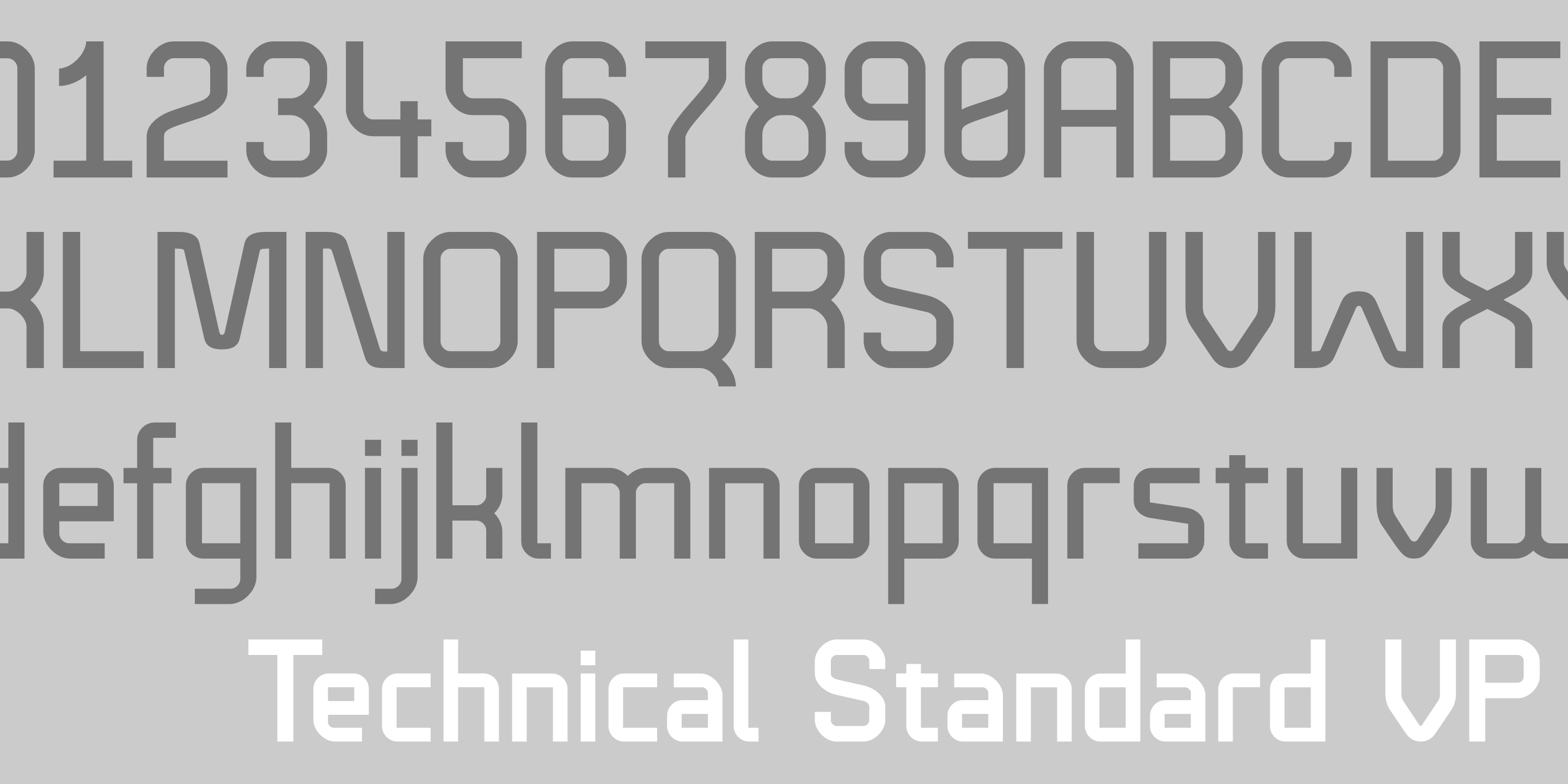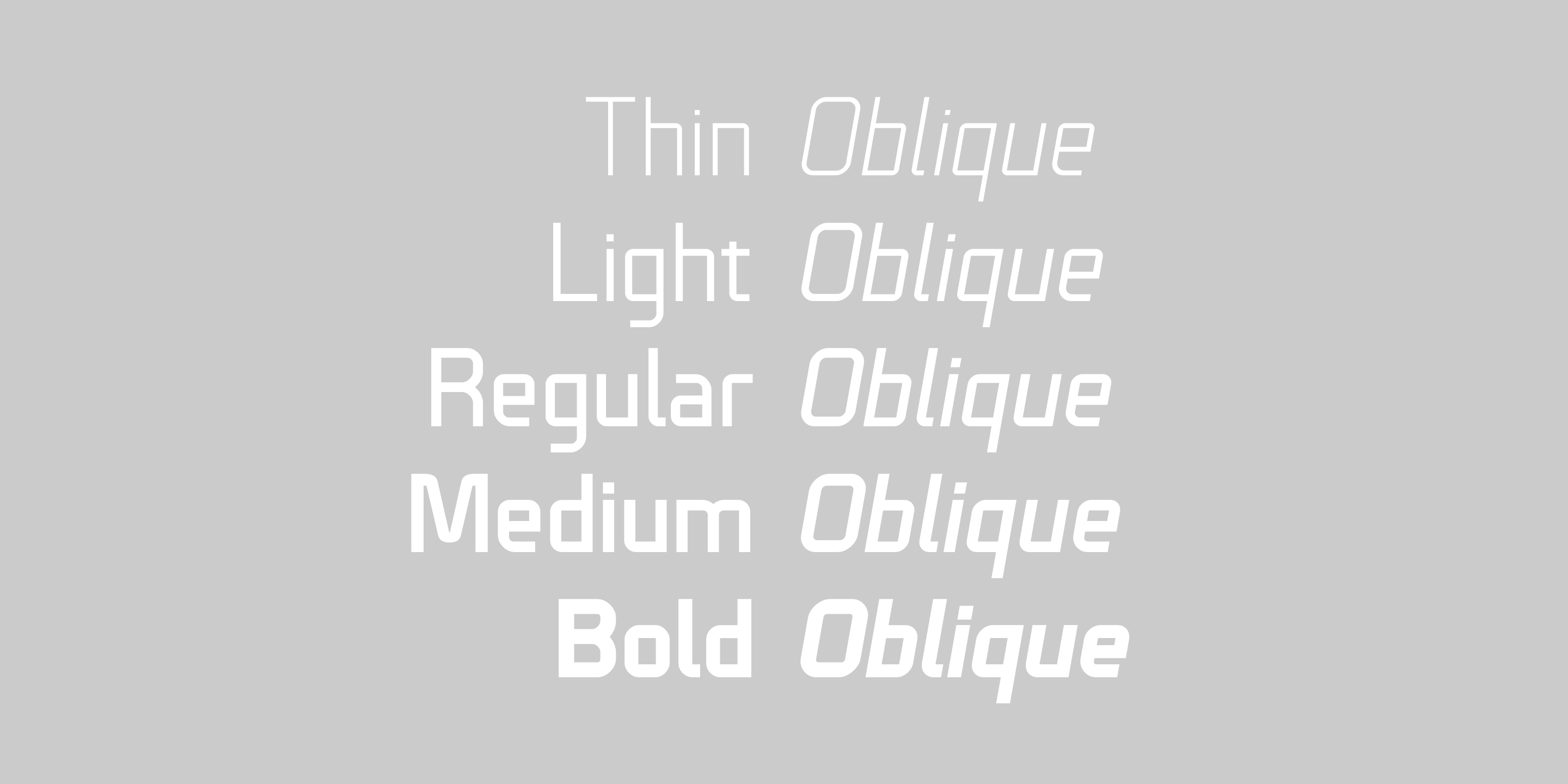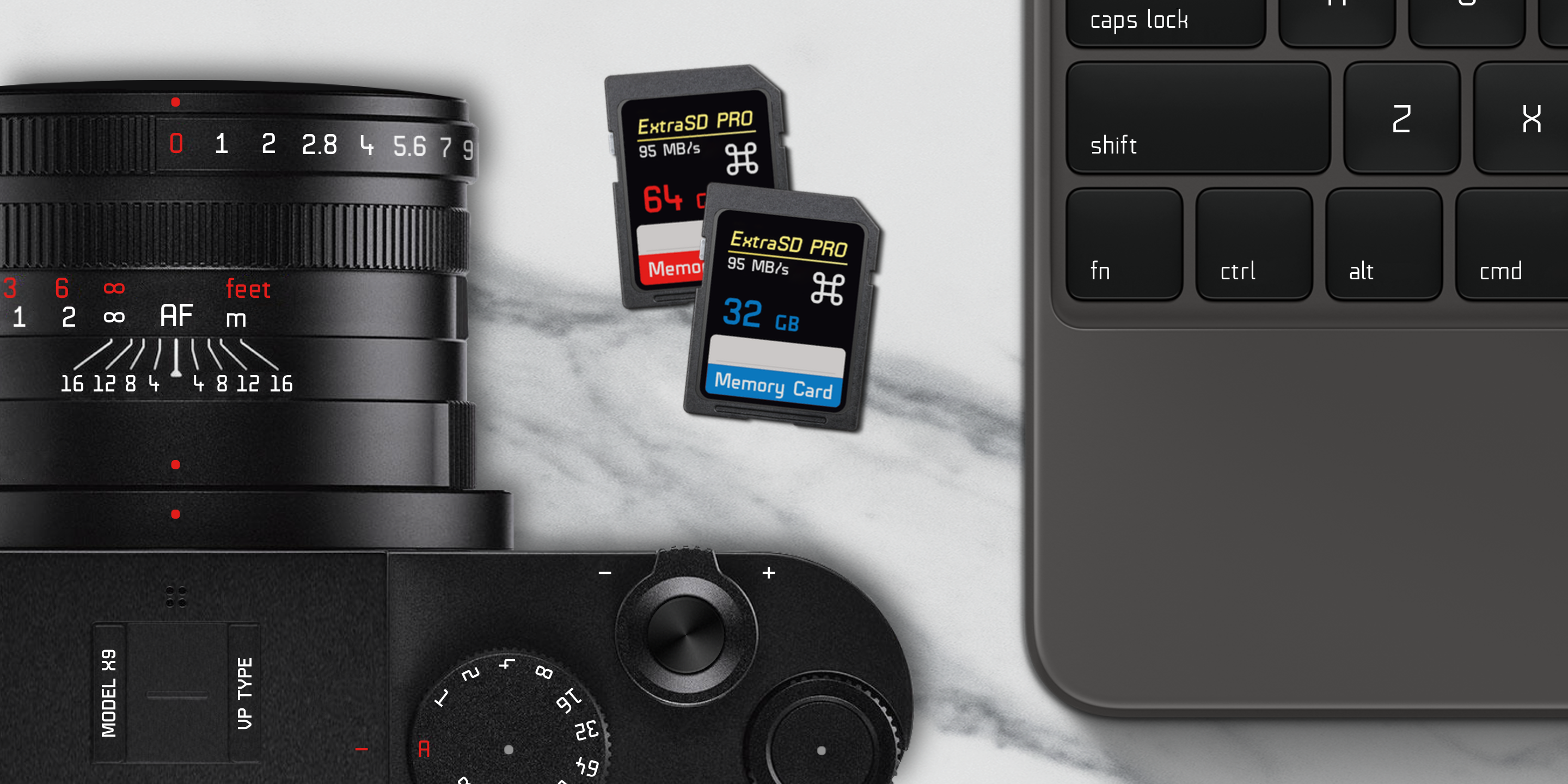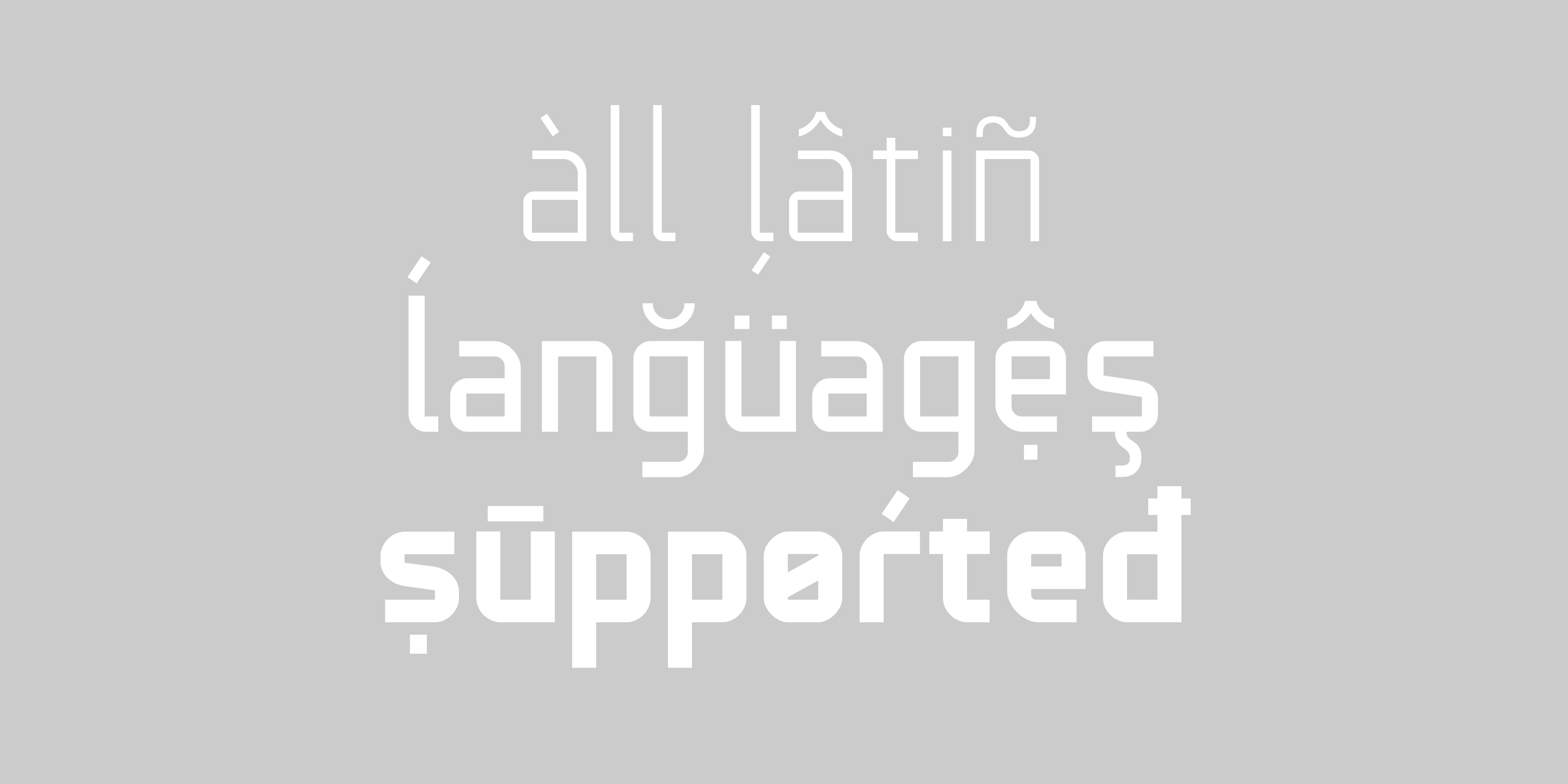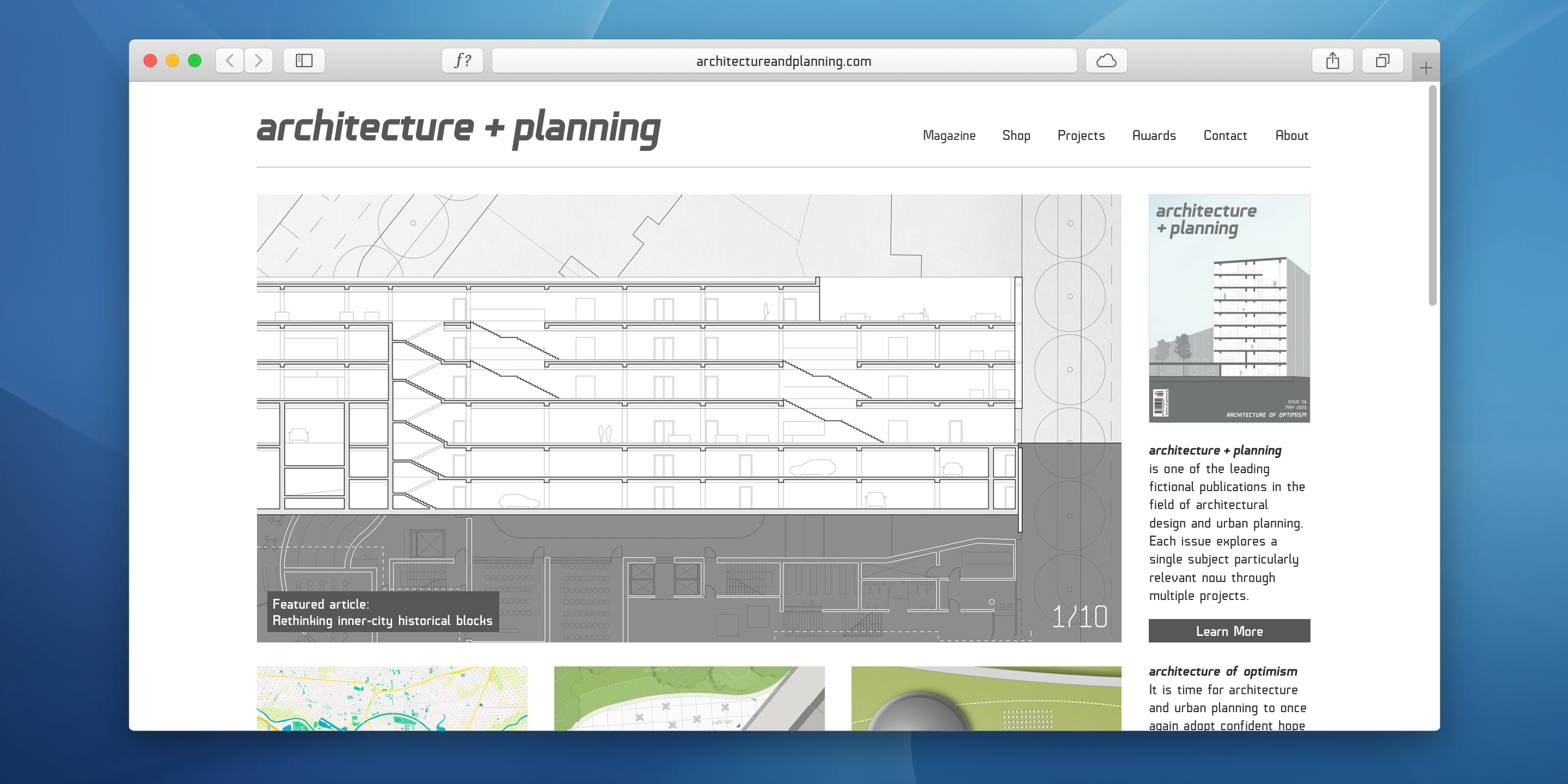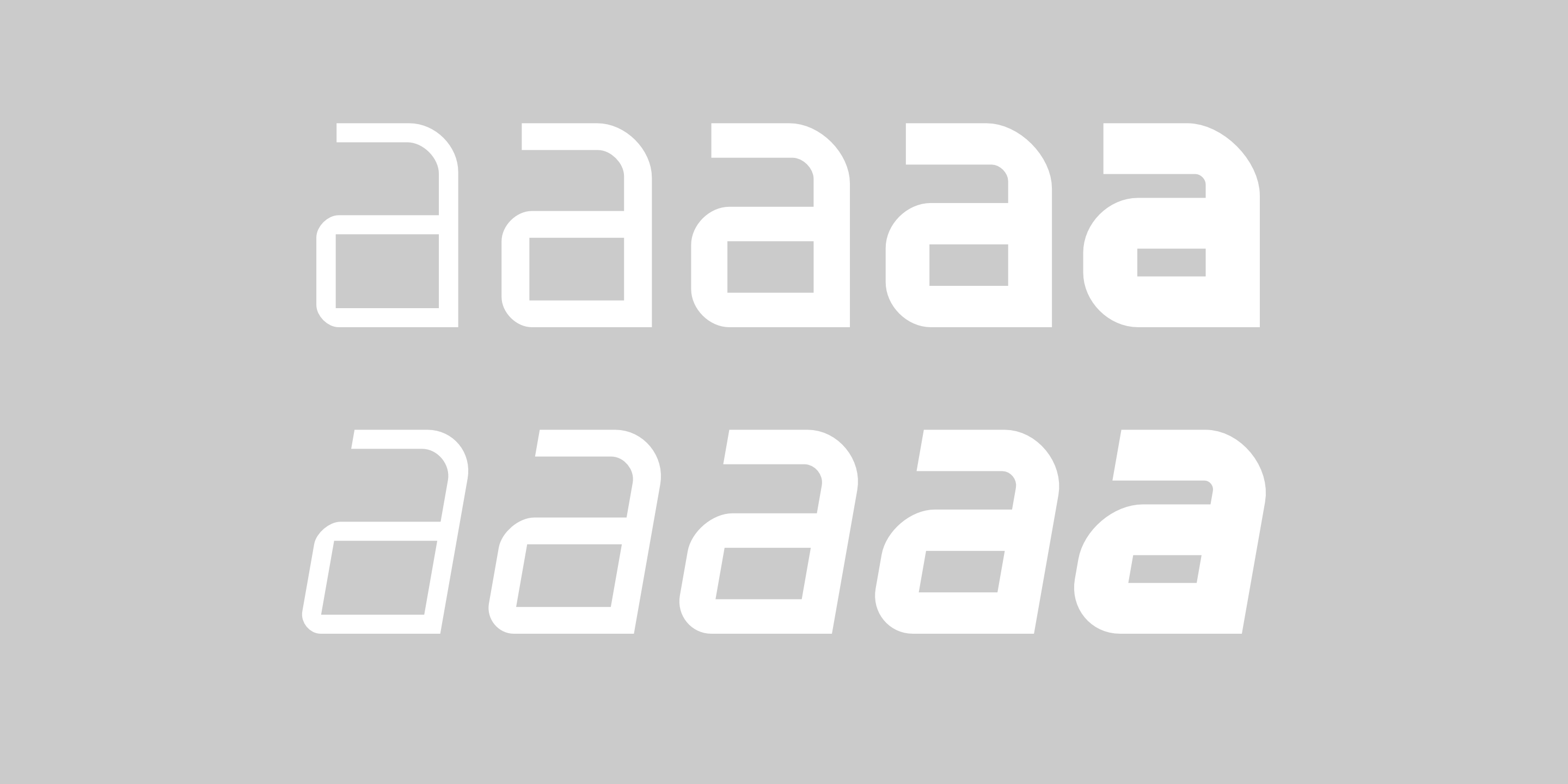
The initial inspiration for the design of <b>Technical Standard VP</b> came from examining the various types of precisely machined labels on tools from cameras to cars, which need to be perfectly legible at all sizes. The unique streamlined look such processes achieve was carefully reinterpreted and manually refined over the course of two years. The resulting font is at the same time robust and stylish, both universal and unique, with its <b>ten distinct styles offering great versatility</b>.
All styles in this family include an extensive Latin character set, the Greek alphabet, multiple sets of numerals, a large set of punctuation marks, and other symbols. With 1120 glyphs in each style, it guarantees <b>full support for all Latin languages</b>.
To make the family even more powerful, <b>twenty OpenType features</b> are included, such as multiple vertical positions, diagonal fractional forms, an optional slashed zero, separate old-style and lining figures, small capitals, and contextual alternates.